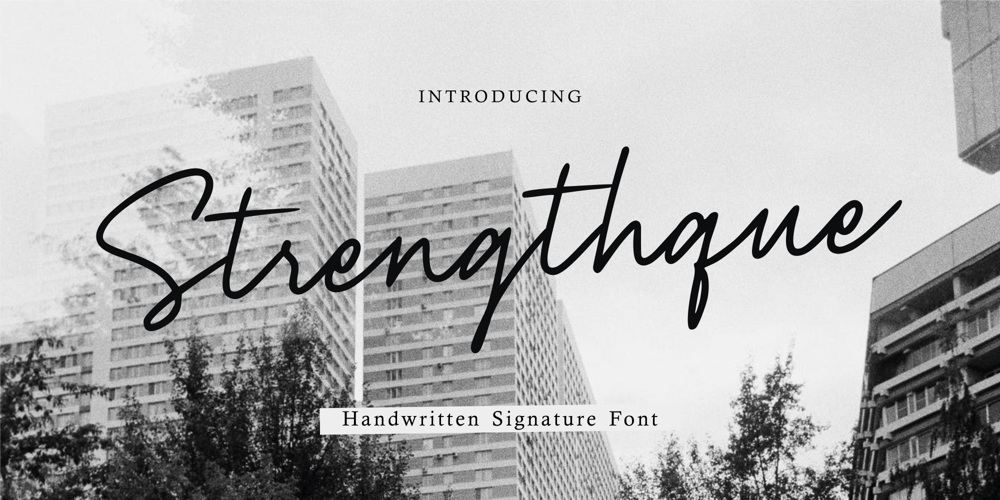
Strengthque
Strengthque font
Strengthque Font Family was designed by Fachrizal Yusuf and published by Allouse Studio. Strengthque contains 1 styles and family package options. Proudly Presenting, Strengthque A Handwritten Signature Font.Strengthque is perfect for any titles, logo, product packaging, branding project, megazine, social media, wedding, or just used to express words above the background.Strengthque also come with Multi-Lingual Support.Enjoy the font, feel free to comment or feedback, send me PM or email. Thank You!